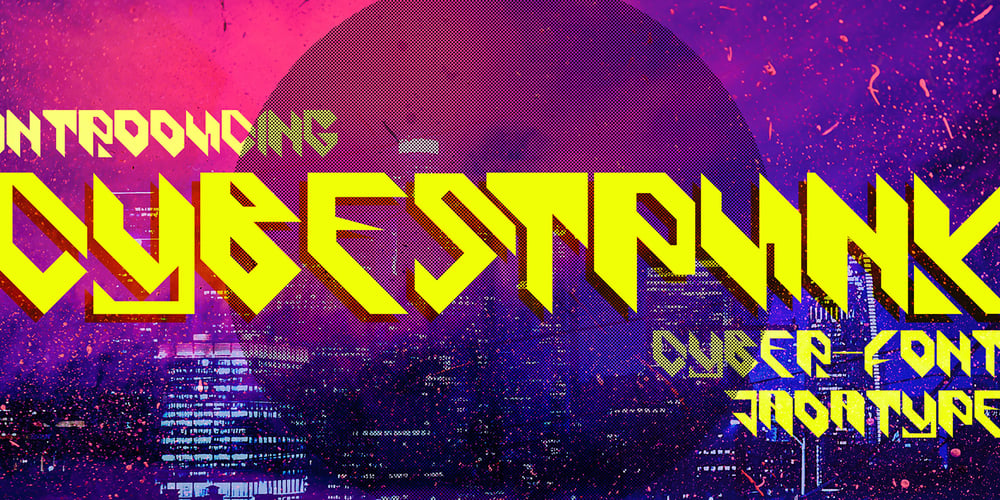
Cybestpunk Font Family was designed by Jada Akbal and published by Jadatype. Cybestpunk contains 1 styles and family package options. Cybestpunk is a display font that comes with a cyber tech style. suitable for tshirt, branding, social media, and so on. contains standard English letters, numbers, punctuation, and several accents that support multilingualism.